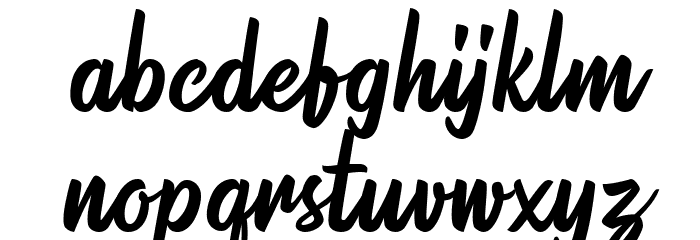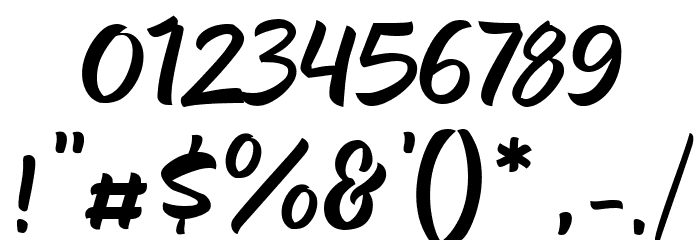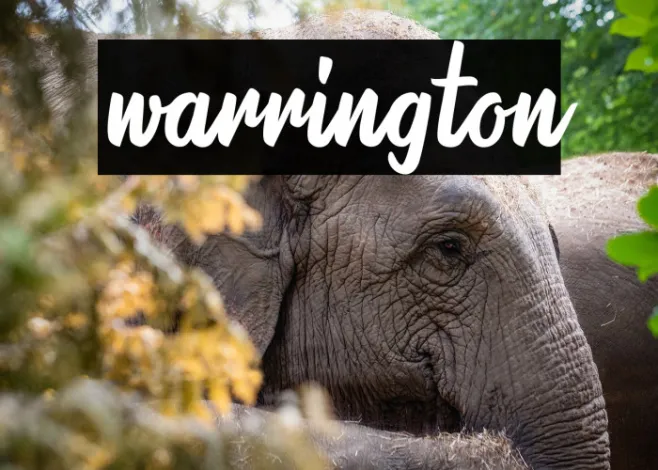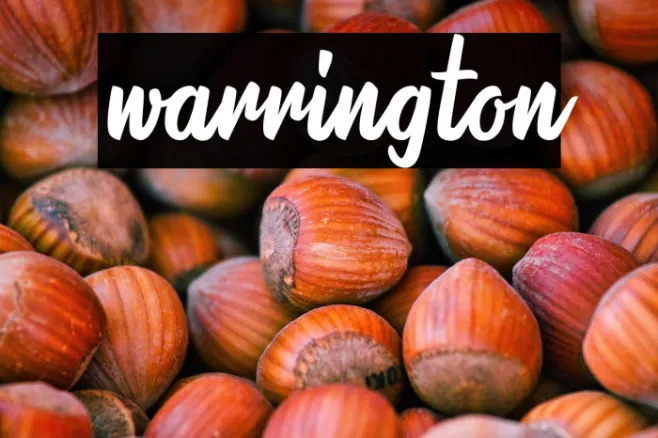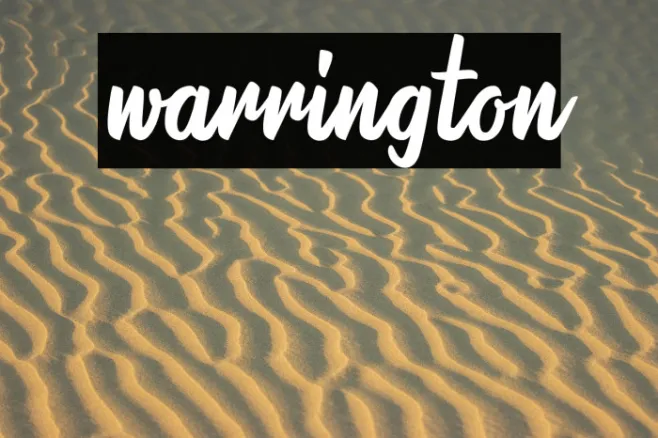
warrington Font
This font features a dynamic and flowing script style, characterized by its elegant and cursive letterforms. The uppercase letters are bold and slightly slanted, giving a sense of movement and fluidity. The lowercase letters maintain a consistent style, with smooth curves and connected strokes that enhance the handwritten feel. Numbers and special characters are designed to match the overall aesthetic, ensuring a cohesive look. The font's playful yet sophisticated appearance makes it suitable for a variety of creative projects.
A dynamic and flowing script font with elegant, cursive letterforms.
- Proposed Projects: Ideal for wedding invitations, greeting cards, branding, and logo design.
- Category: Script
- Use Case: Logos, Headlines, Decorative text